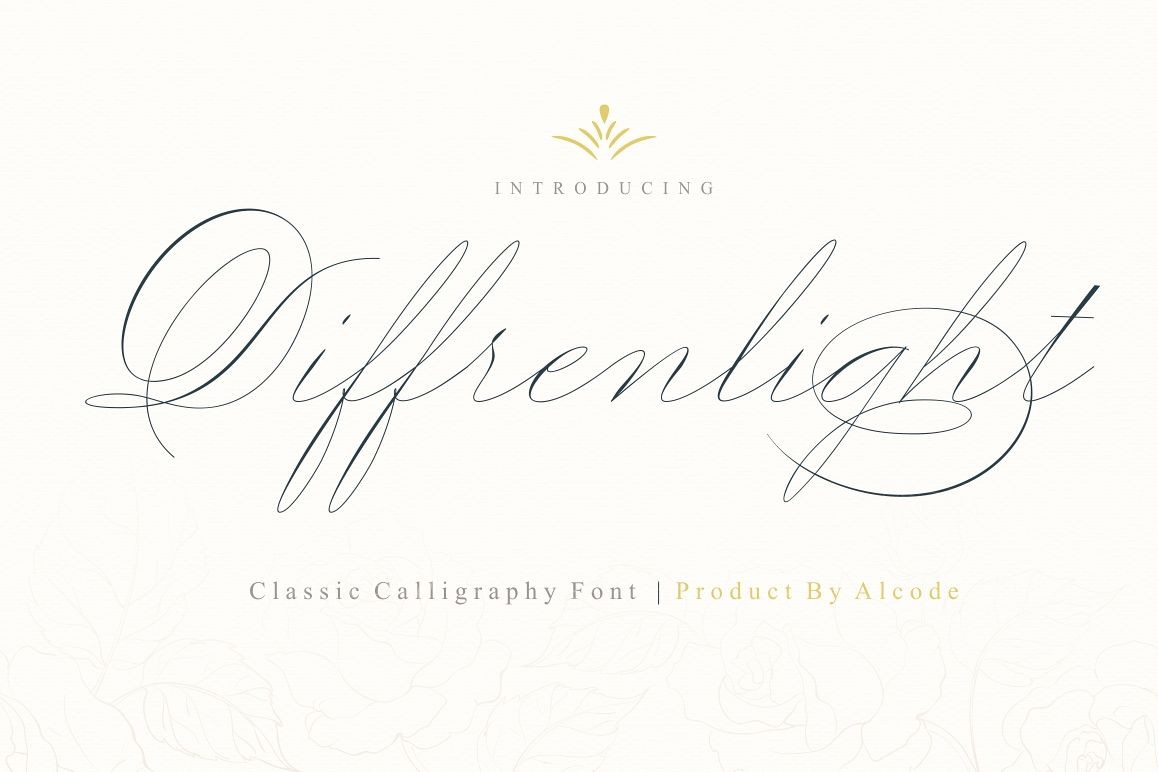
Diffrenlight
Introducing Diffrenlight
Diffrenlight is a classic font. With OpenType features, it recreates the handwriting feelings of an Italian woman in the mid-19th century. So it makes it perfect for wedding media, book covers, greeting cards, logos, branding, business cards and certificates, actually for any design work that requires a clasik, formal or luxury.
Try Diffrenlight, enjoy the richness of OpenType features and let her fun and elegant excitement make you happy and enhance your creativity! You can use this font very easily.